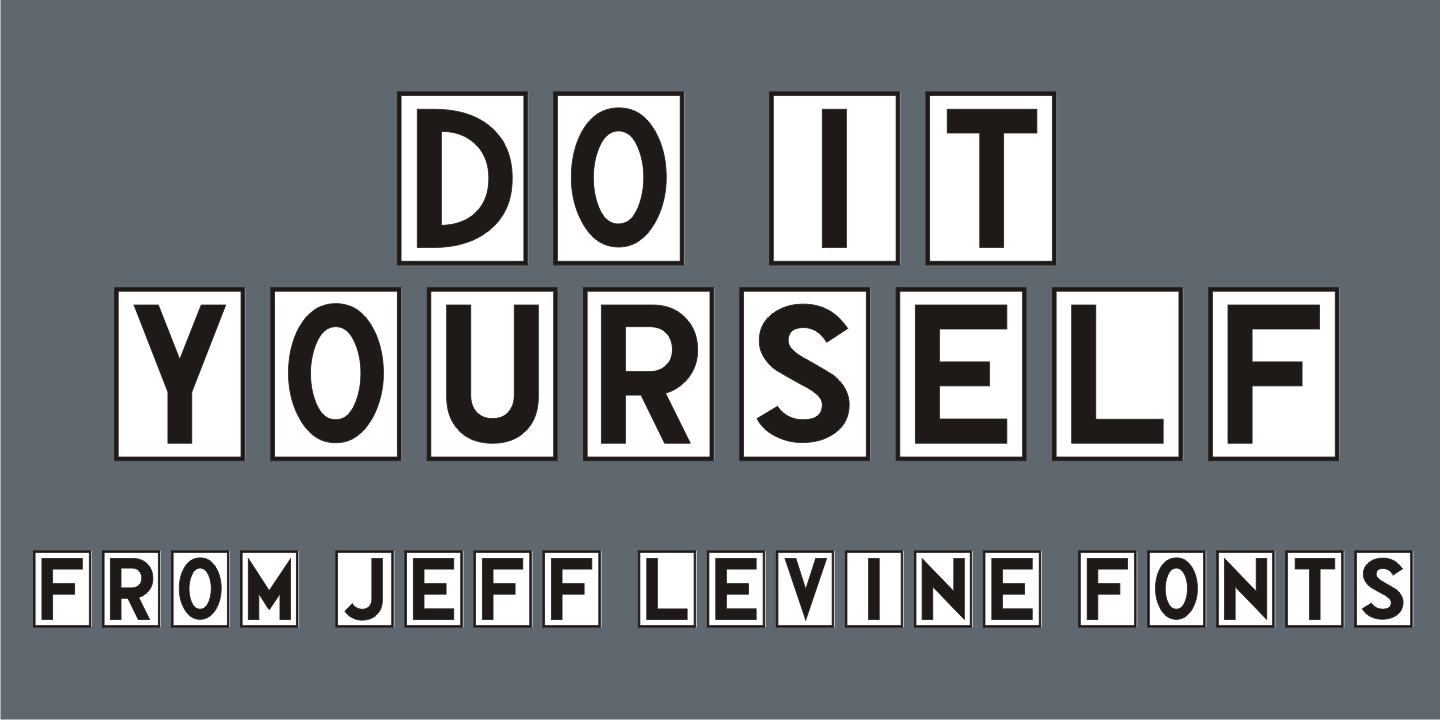
Do It Yourself
Do It Yourself JNL was modeled after self-adhesive vinyl letters and numbers manufactured by Duro Art Industries of Chicago - formerly the Duro Decal Company.
The hand-drawn look of the original lettering was retained by Jeff Levine to stay true to the design, and the rectangles that border each glyph represent the pieces of self-adhesive vinyl onto which the characters were silk screened. Limited character set.
Do It Yourself JNL Regular by Jeff Levine Fonts